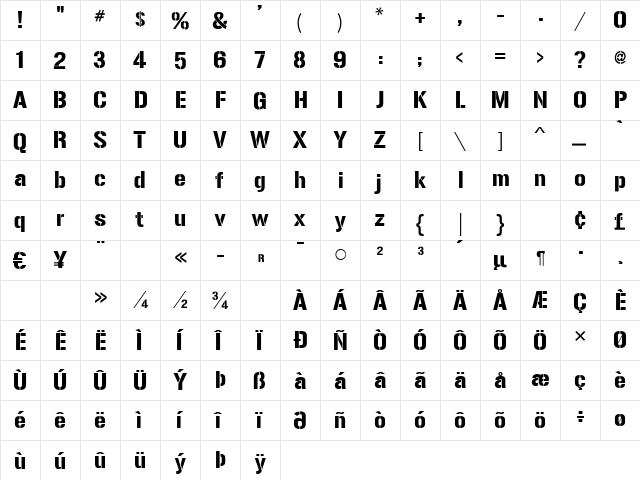
Gunplay Regular
Design Context for Gunplay Typeface
Gunplay takes a measured approach to typography — its balanced proportions and neutral character make it a reliable workhorse for both digital and print work.